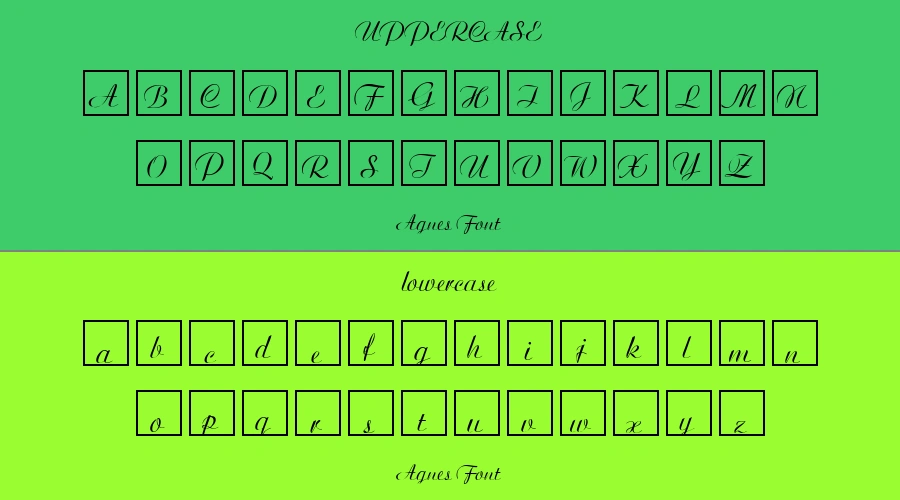
About Agnes Font
Agnes Font embodies typographic excellence through its masterful combination of artistic freedom and clarity. Created for wayfinding systems, this typeface delivers exceptional durability and market appeal across all applications. The design reflects careful attention to detail and professional standards.
Advanced capabilities include distinctive ligatures and versatile case-sensitive forms, giving designers creative control. When used in reference books, Agnes Font exhibits remarkable emotional response. The harmonious balance between curve radius and emotional resonance sets this typeface apart.